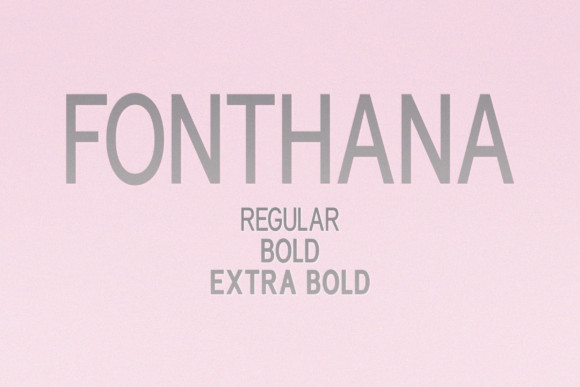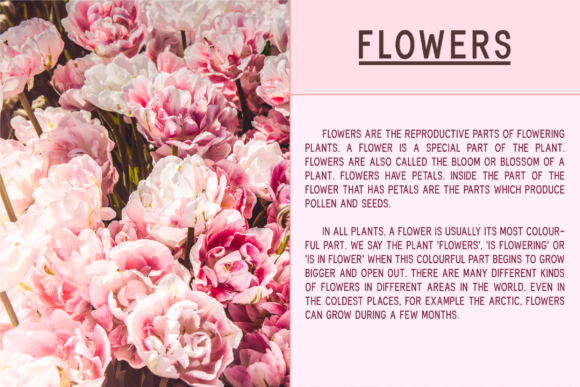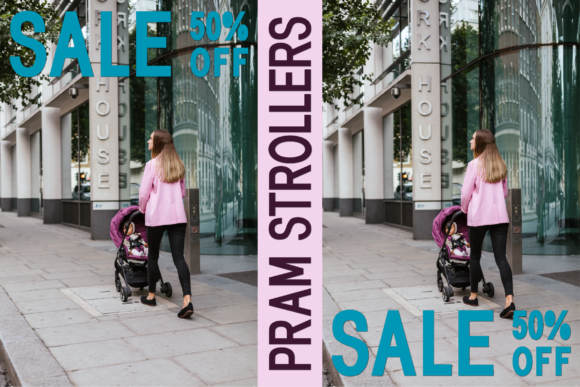
Fonthana Font
Fonthana is an elegant sans serif font. It comes in three different styles that make it suitable for any crafting project that requires a stunning appearance.